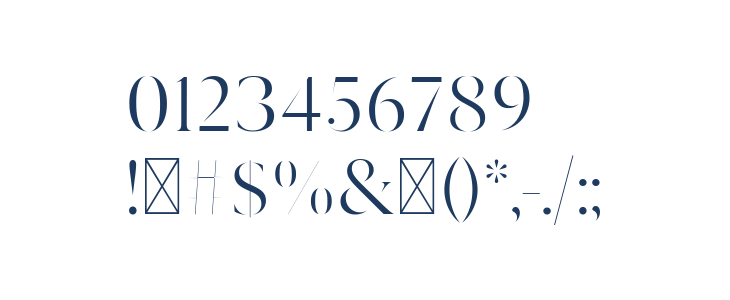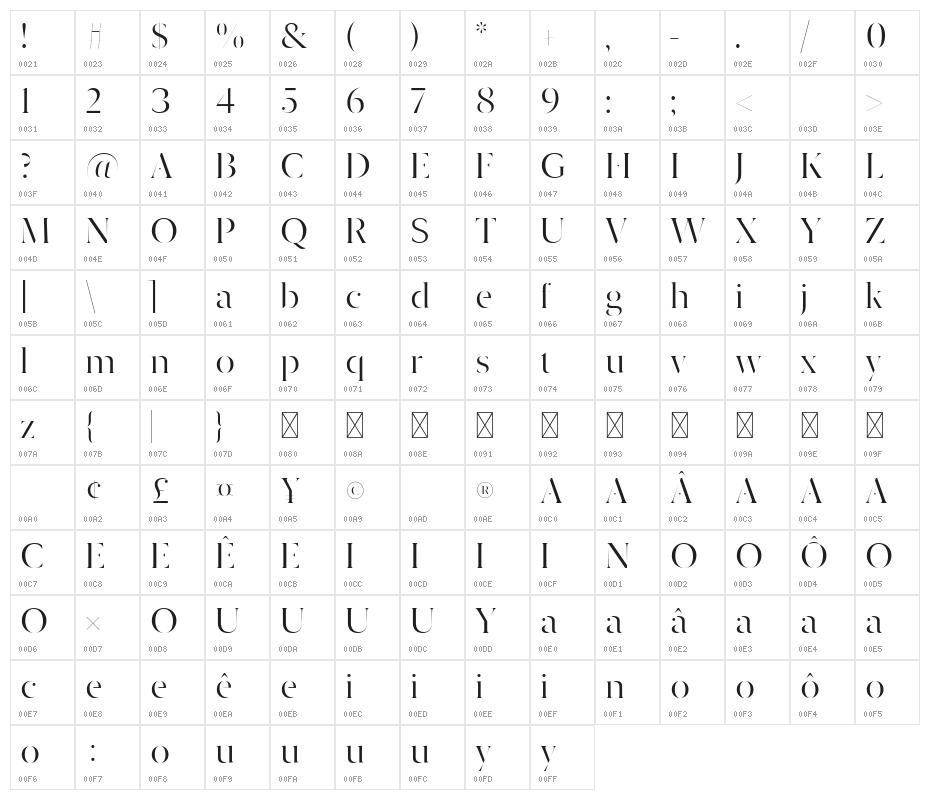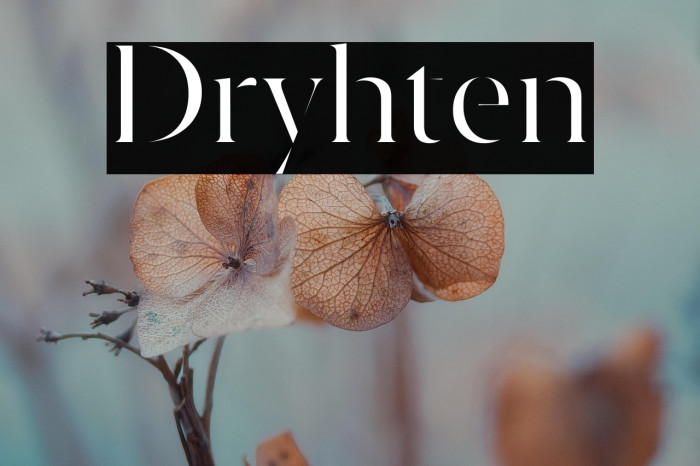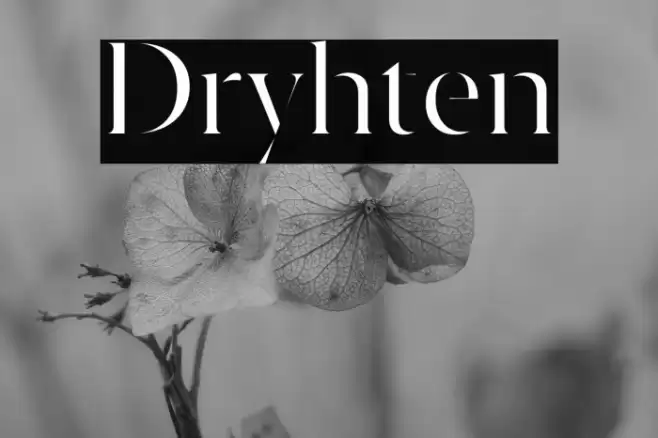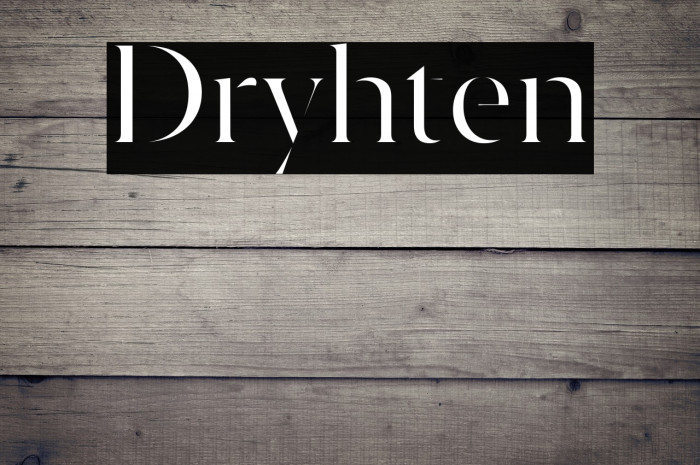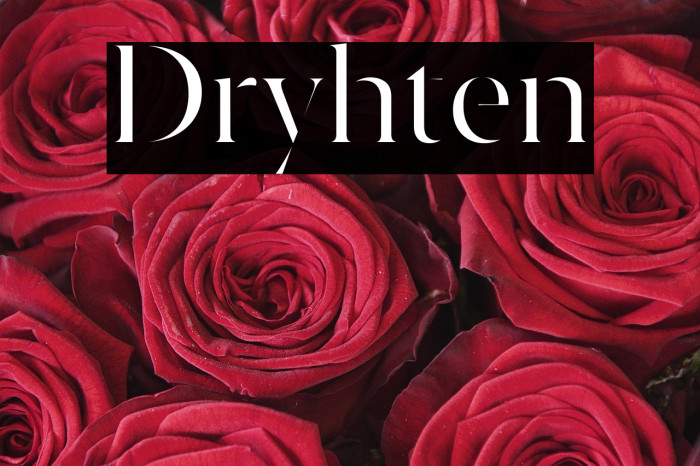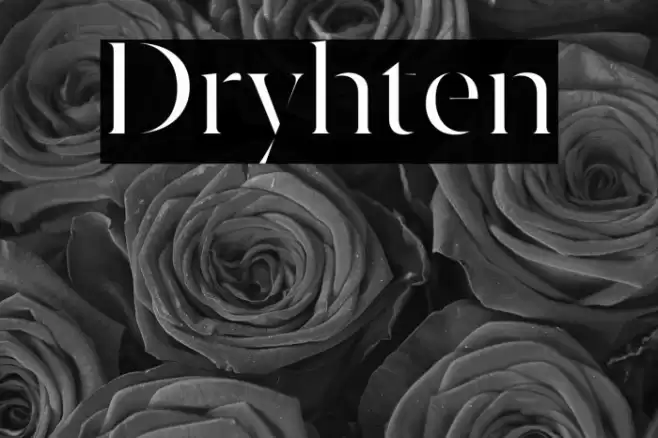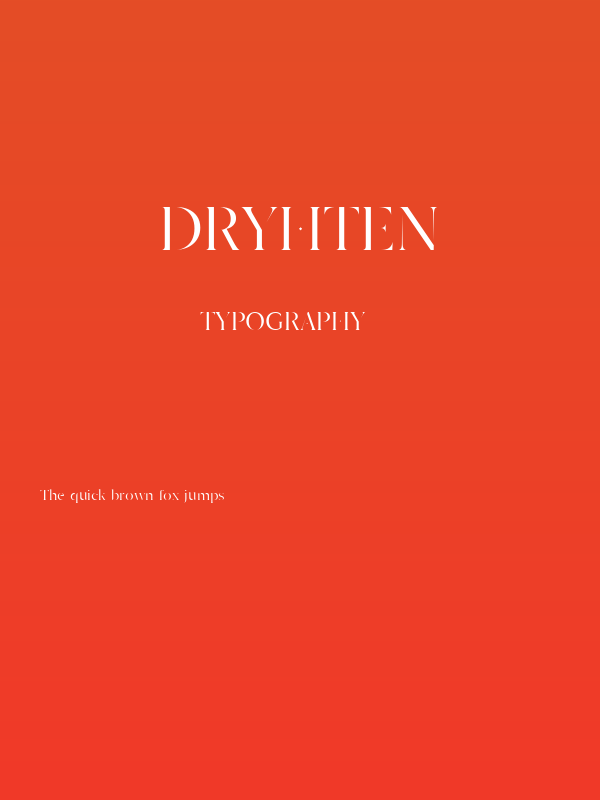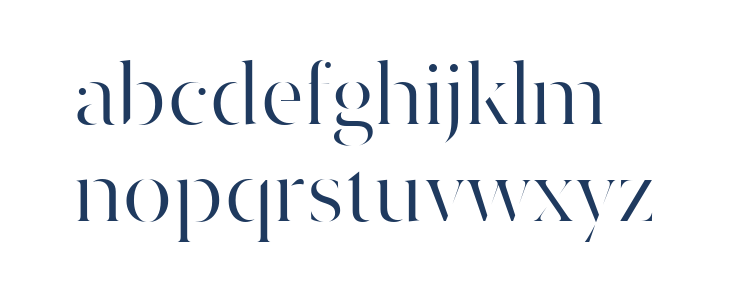
Dryhten Font
Dryhten Description
This font features a striking contrast between thick and thin strokes, creating a dramatic and elegant appearance. The uppercase letters are bold and commanding, while the lowercase letters maintain a refined and sophisticated look. The numerals are distinct and stylish, complementing the overall aesthetic. Special characters are designed with the same attention to detail, ensuring consistency throughout. The font's modern yet timeless design makes it versatile for various applications.
| Proposed Projects | Ideal for luxury branding, editorial design, fashion magazines, and high-end product packaging. |